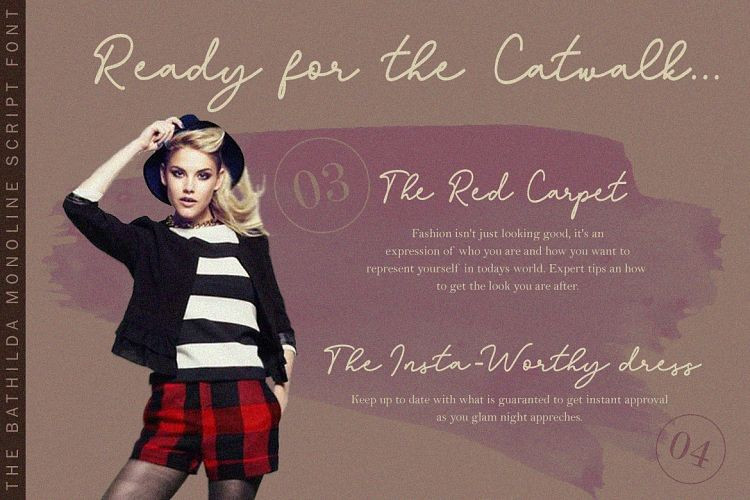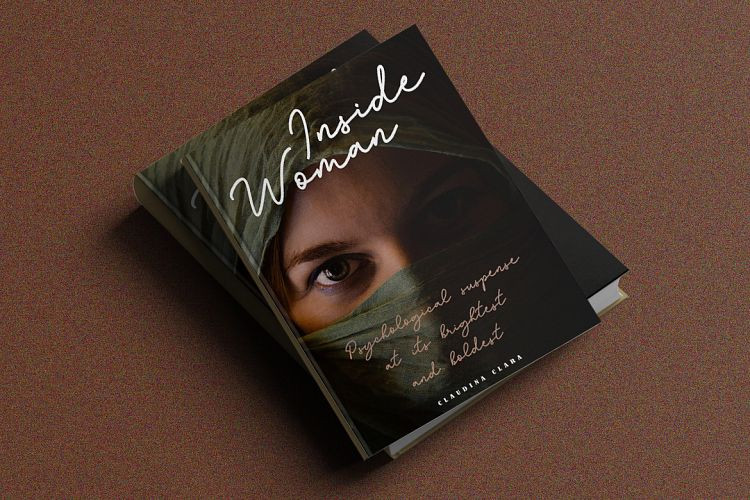
Bathilda Handwritten Font
Bathilda Handwritten Demo Font
A lovely natural handwritten font by Subectype. It is mono line casual, hand lettered font, created for bloggers, craft makers and designers. Introducing Bathilda Font. The Bathilda is a monoline script font with an elegant style. It has good readability and is perfect for logos, invitations, wedding, signatures, and much more!